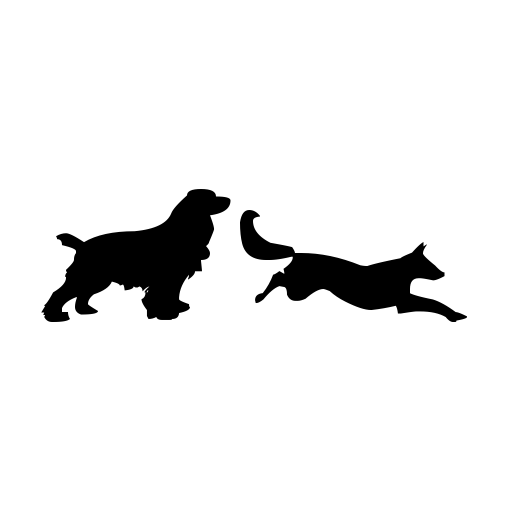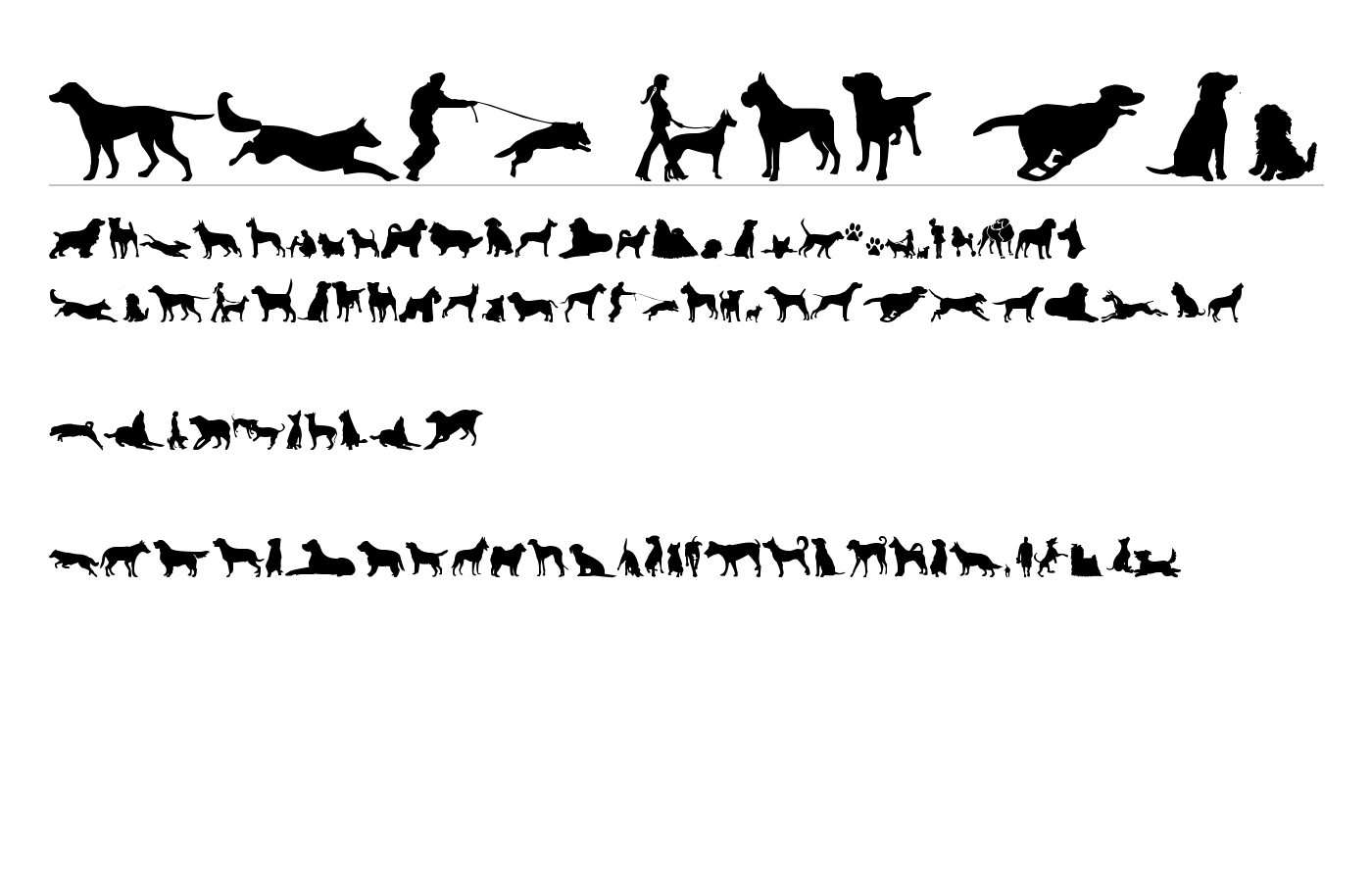
Can Dog TFB is a fun and playful pictorial font featuring solid black silhouettes of various dog breeds and people interacting with dogs in different poses. This decorative typeface works well for pet-related brands, children’s projects, and casual, lighthearted designs where a charming and approachable vibe is desired. Its unique dog-themed glyphs make it perfect for creating eye-catching logos, posters, or invitations that celebrate canine companions.
About can dog tfb Font